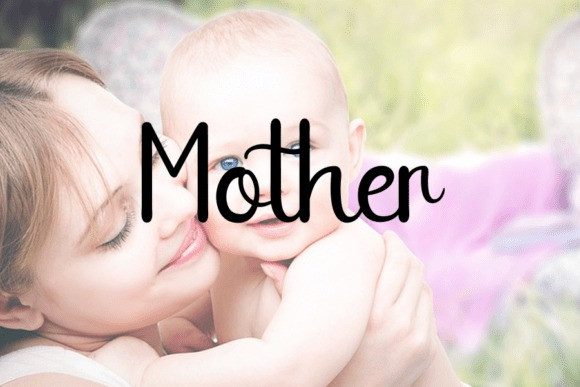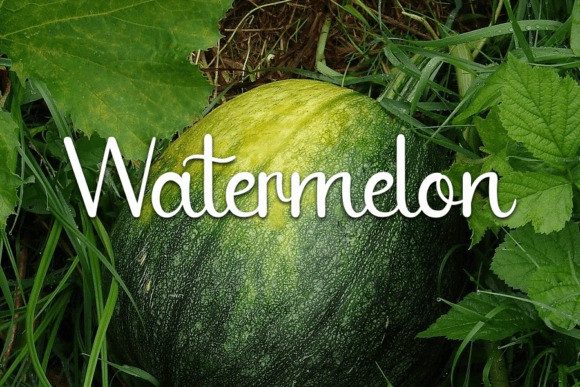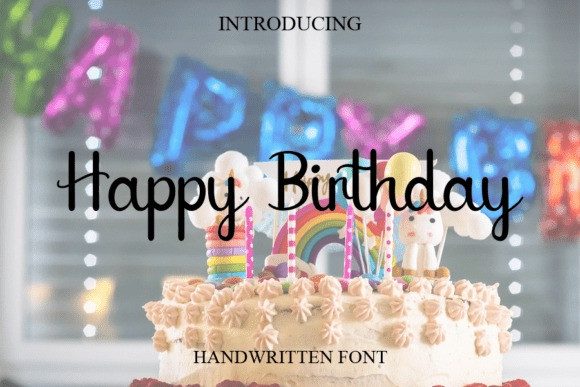
Happy Birthday Script Typeface
Happy Birthday Script Typeface is a sweet and cheerful handwritten font that brings joy to any celebration.With its playful loops and friendly personality, this font is perfect for party invitations, kids’ birthday cards, festive crafts, and joyful packaging. It captures a handwritten charm that feels warm and personal—ideal for making someone smile on their special day.